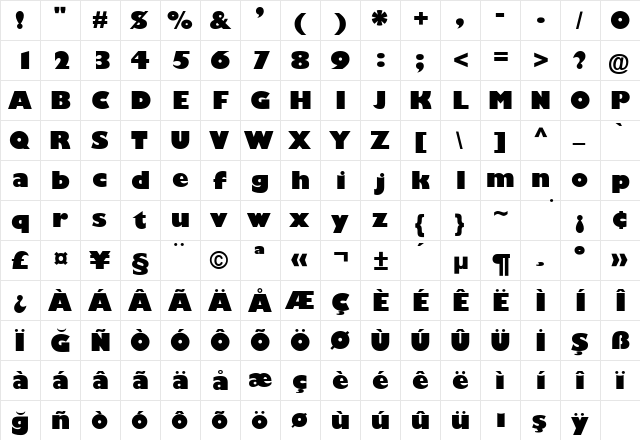
Gilbert Ultra Bold Regular
Design Context for Gilbert Ultra Bold Typeface
Gilbert Ultra Bold is a composed and adaptable typeface that performs quietly and consistently across a wide range of design contexts. Its bold stroke weight gives it real presence on the page.
Pro Tip: Use Gilbert Ultra Bold in both headline and body roles to test its range before committing to a single application.